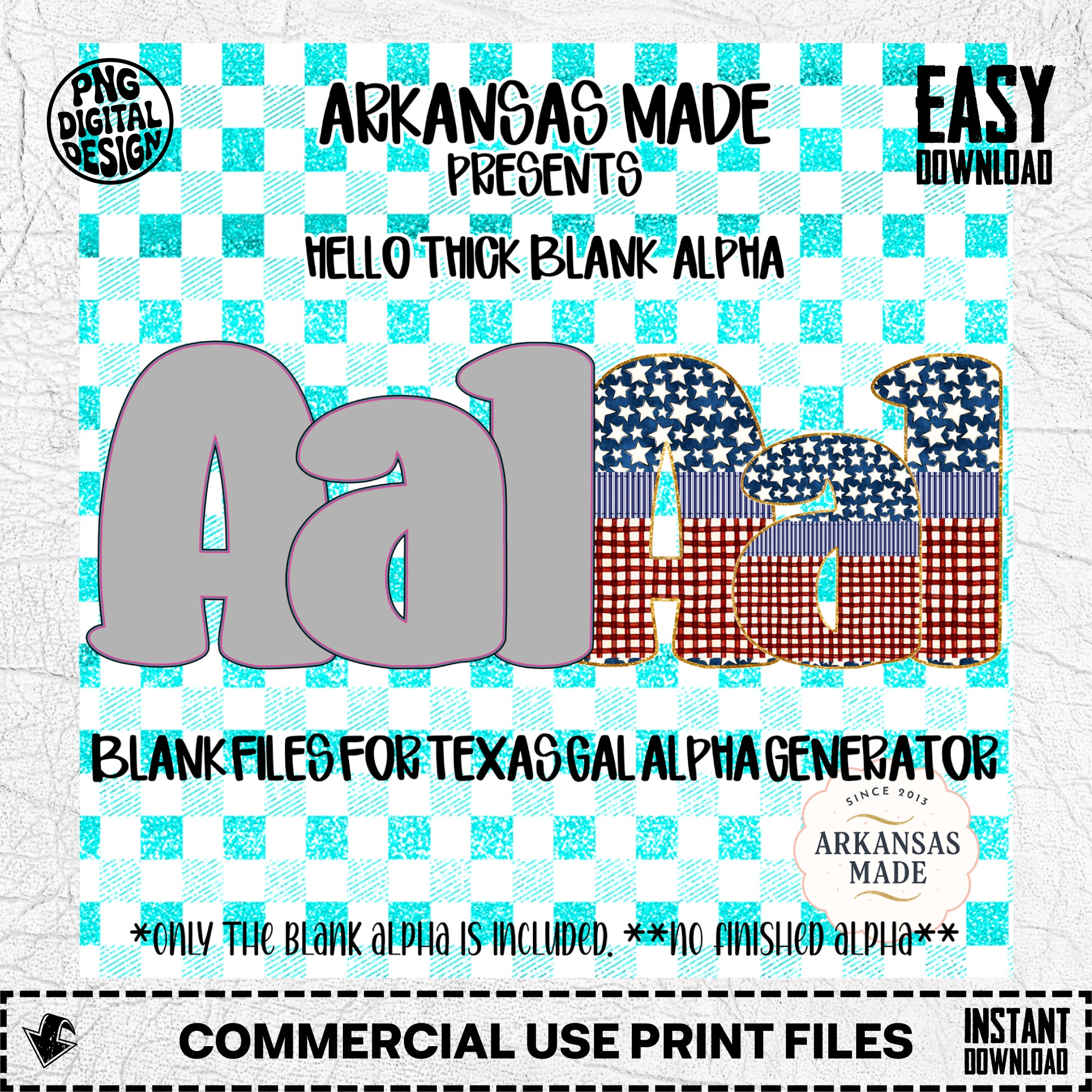
Hello Thick Blank Alpha Digital PNGs for Texas Gal Alpha Generator | Customizable Chunky Font Letters DIY Crafting Files
Hello Thick Blank Alpha Digital PNGs for Texas Gal Alpha Generator. Craft unique designs with customizable chunky letters! Unlock your creativity with these versatile blank digital alpha files, perfect for DIY projects, personalized gifts, and custom merchandise. This chunky font is ideal for adding bold statements to your designs, offering endless possibilities for digital crafters and small business owners alike. Transform your ideas into stunning creations today!